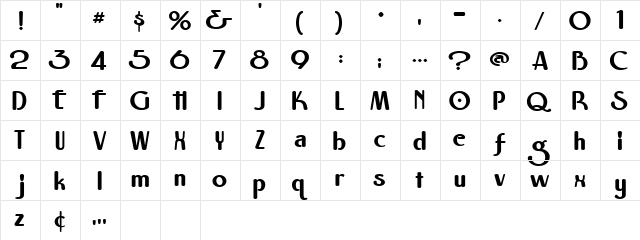
2 Nelson ShoCard Fat DNA Regular
Design Context for 2 Nelson ShoCard Fat DNA Typeface
2 Nelson ShoCard Fat DNA takes a measured approach to typography — its balanced proportions and neutral character make it a reliable workhorse for both digital and print work.
Pro Tip: Use 2 Nelson ShoCard Fat DNA in both headline and body roles to test its range before committing to a single application.